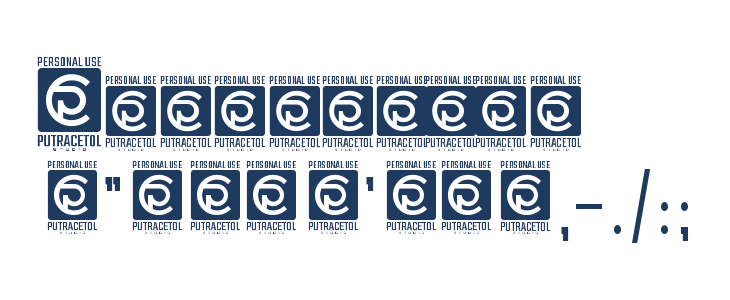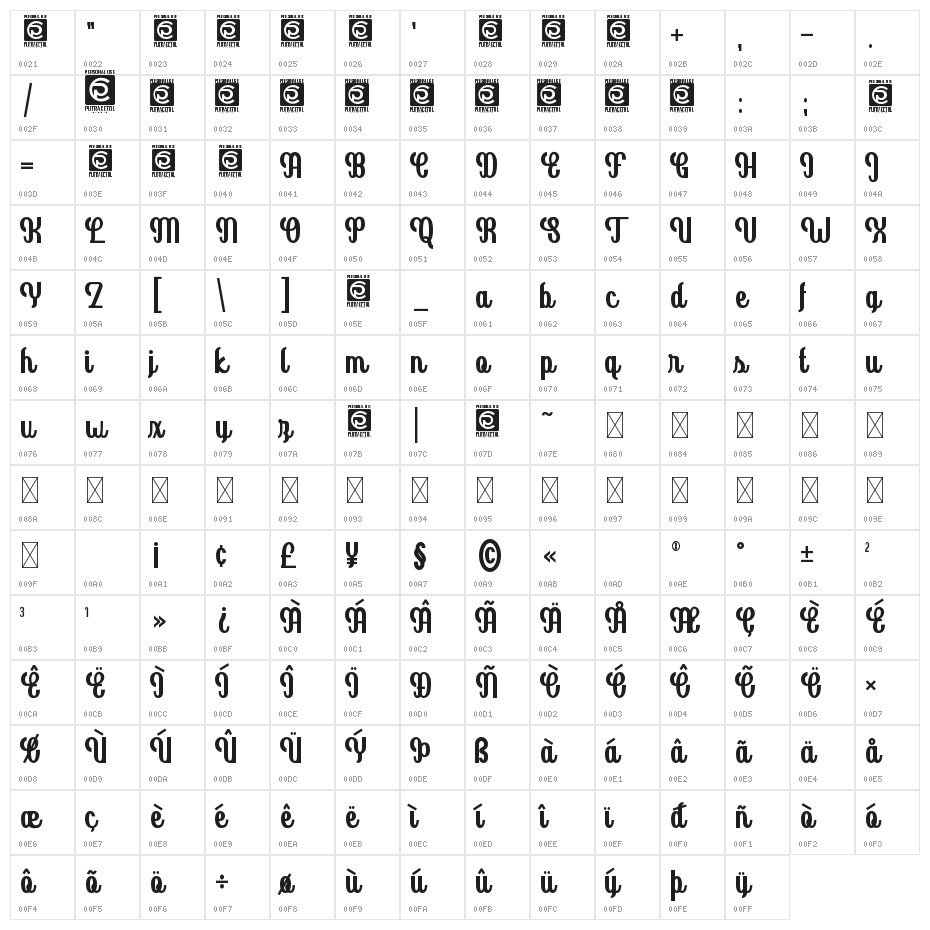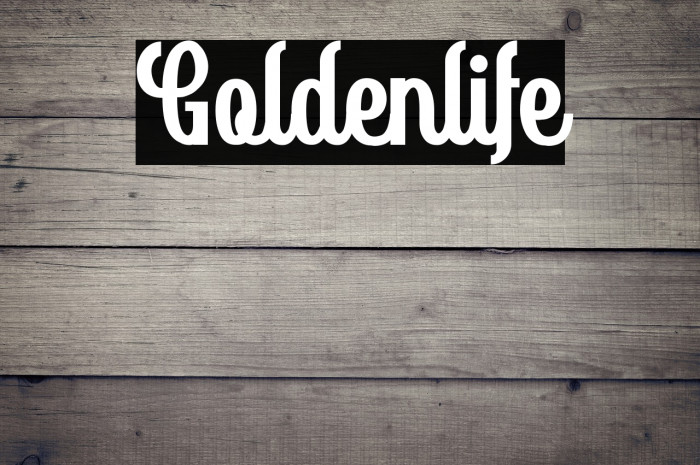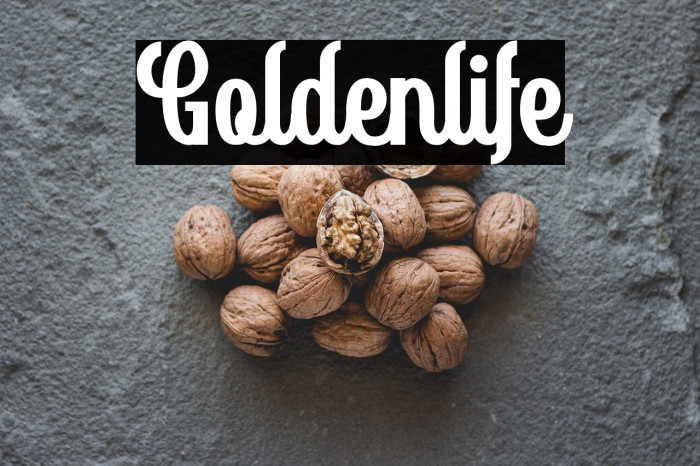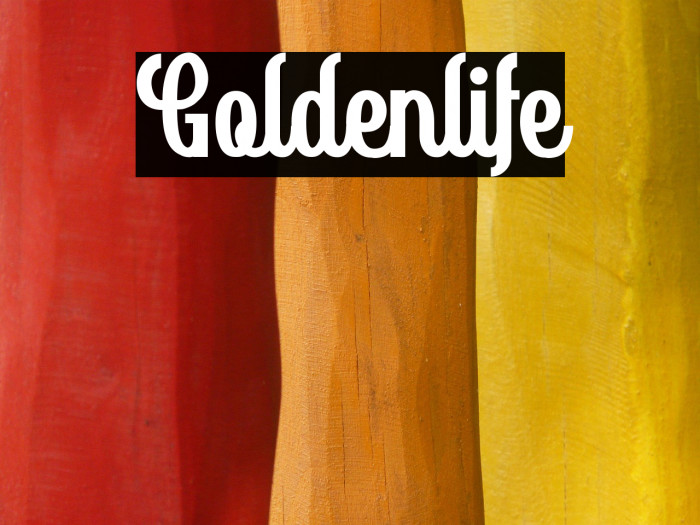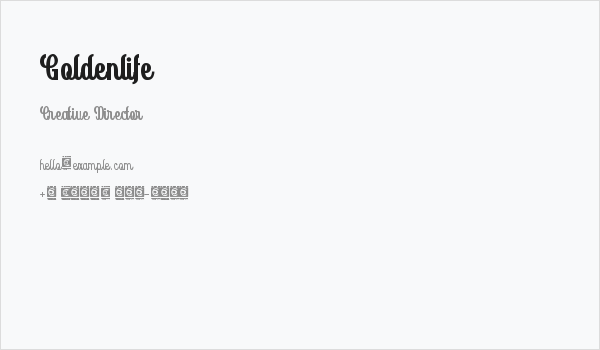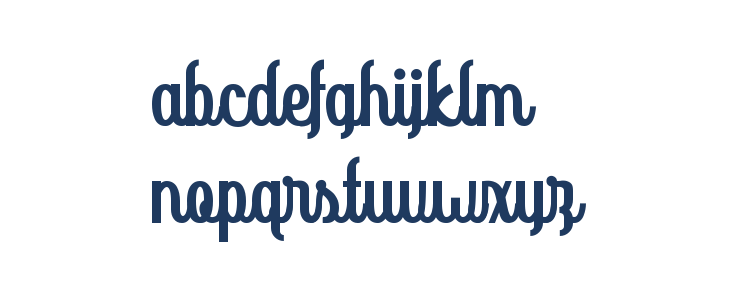
Goldenlife Font
Goldenlife Description
This font features a unique blend of modern and vintage styles, characterized by its bold, decorative letterforms. The uppercase letters exhibit a playful yet structured design with consistent stroke widths and subtle curves, giving them a distinctive appearance. The lowercase letters maintain this aesthetic, offering a cohesive look across the alphabet. The numerals and special characters are crafted with the same attention to detail, ensuring versatility in various design contexts. The font's overall style is both eye-catching and functional, making it suitable for a range of creative projects.
| Overall Style | Modern Vintage |
| Proposed Projects | Ideal for branding, poster design, packaging, and any project requiring a bold, decorative touch. |